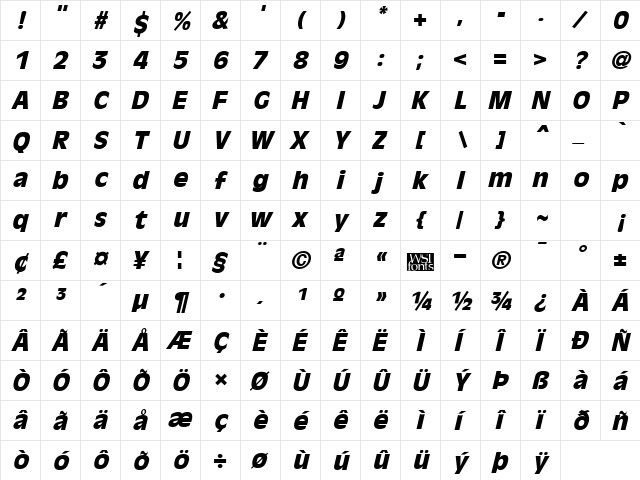
OliviaAntiqueBlack Italic Font Preview
OliviaAntiqueBlack Italic
OliviaAntiqueBlack Italic Font Details
Design Context for OliviaAntiqueBlack Typeface
OliviaAntiqueBlack wears its vintage influences proudly, with letterforms that recall mid-century signage, classic packaging, and nostalgia-driven design. Its italic angle brings a sense of urgency and motion to the letterforms.
Ideal for diner signage, record shop branding, 70s/80s-themed projects, and heritage product labels.
Font Pairing: Combine OliviaAntiqueBlack with a simple slab or neutral sans — period-accurate companions reinforce the vintage feel without competing for attention.
Pro Tip: Lean into OliviaAntiqueBlack's period character by pairing it with aged paper textures, muted colour palettes, and vintage illustration styles.